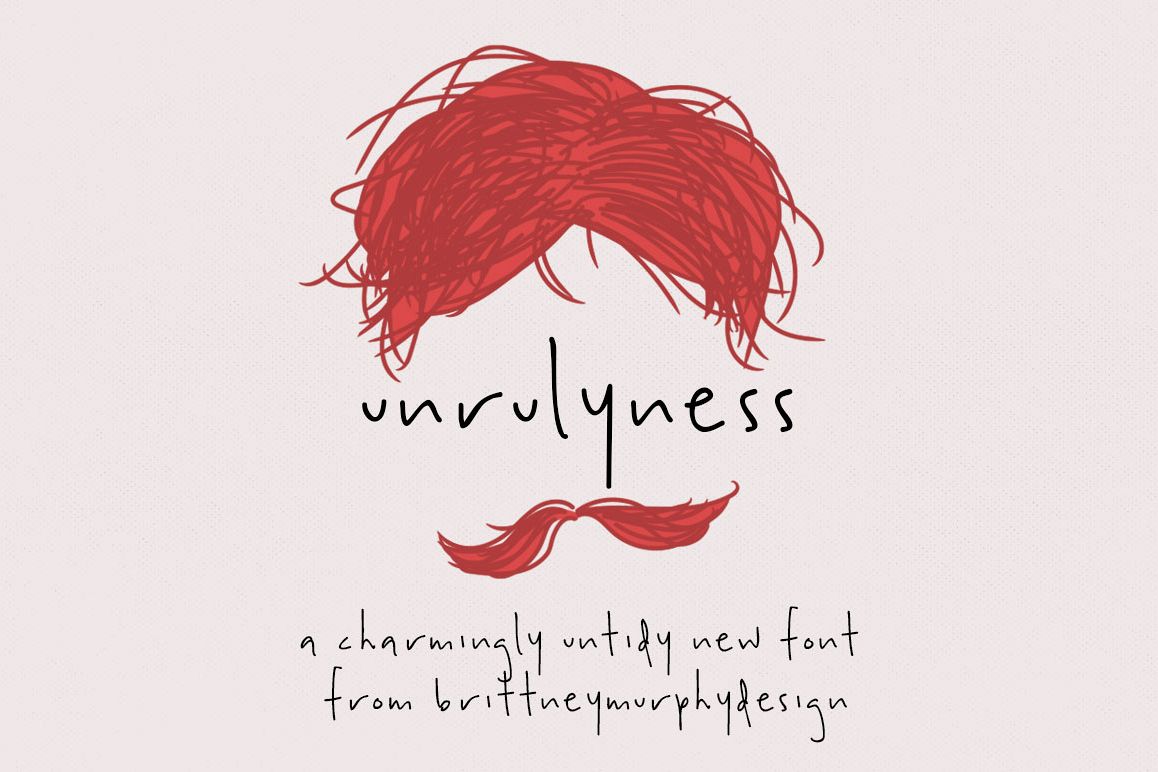
Unrulyness
Some things are meant to be pretty. Wedding invites, framed artwork, birthday cards. And that’s well and wonderful. But for everything else- the endless lists, quick notes on the fridge, a scrawled reminder on the desk- there’s Unrulyness, a charmingly untidy new font for the messier things in life.